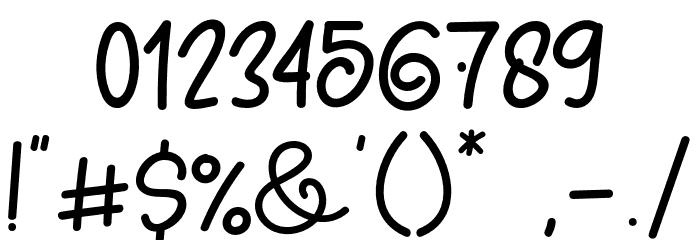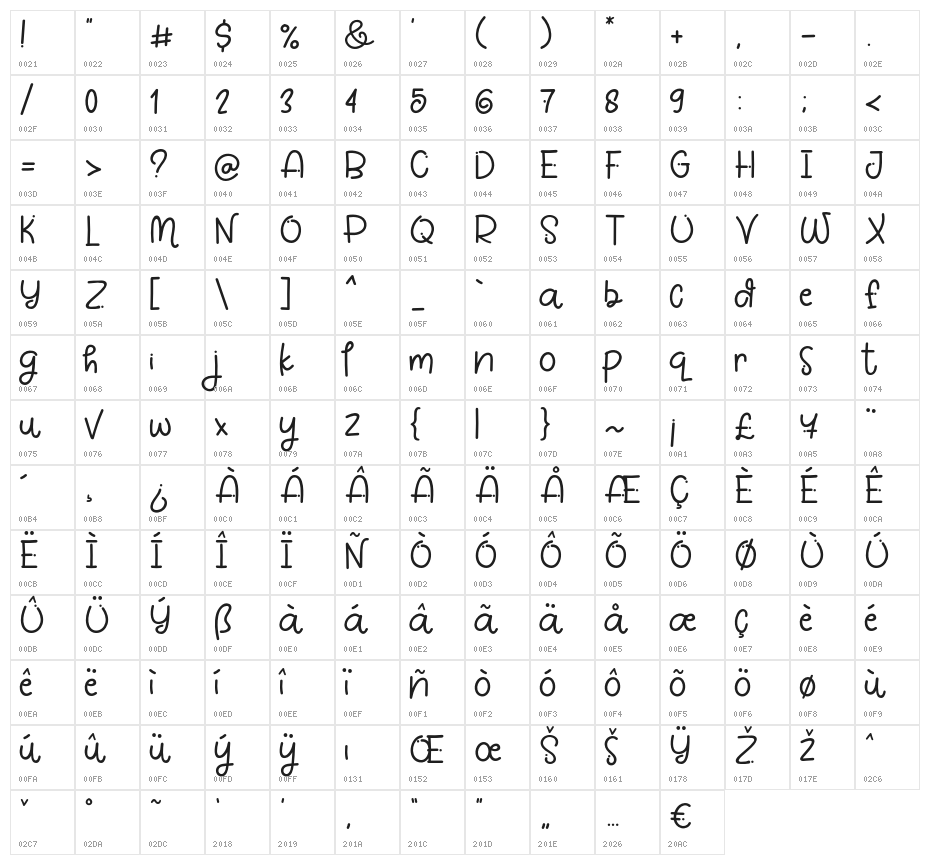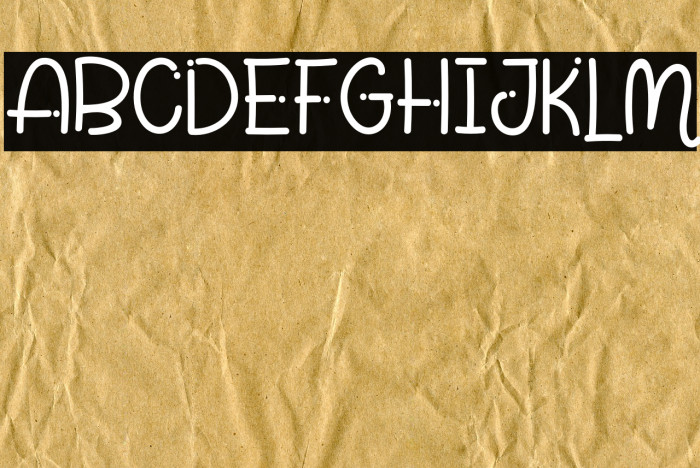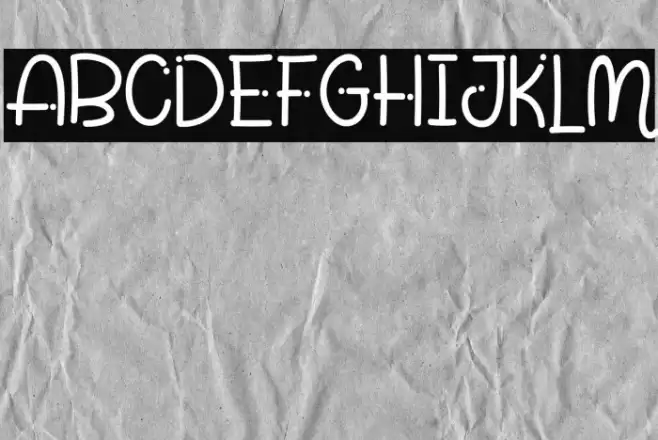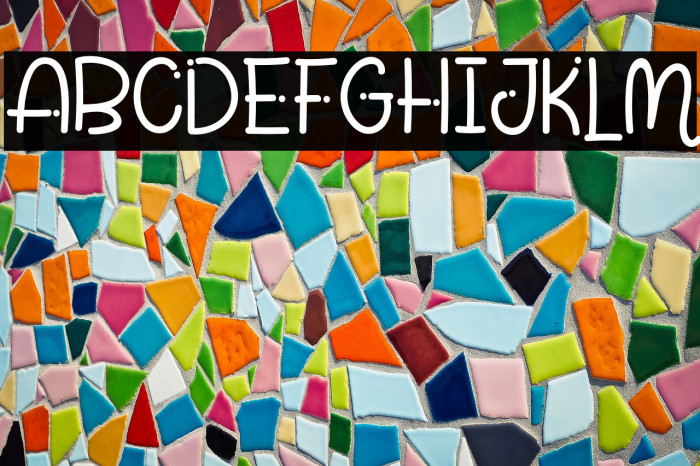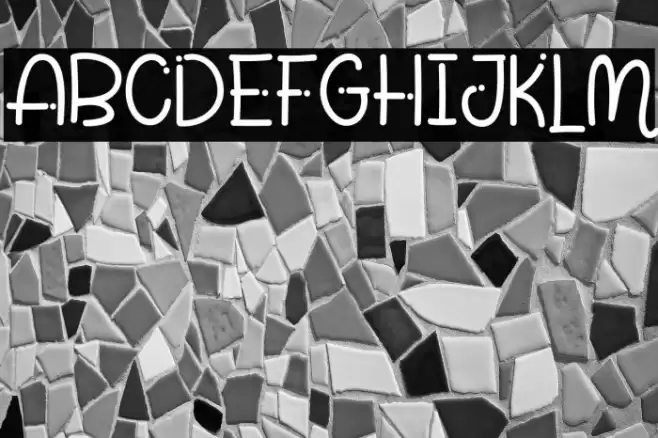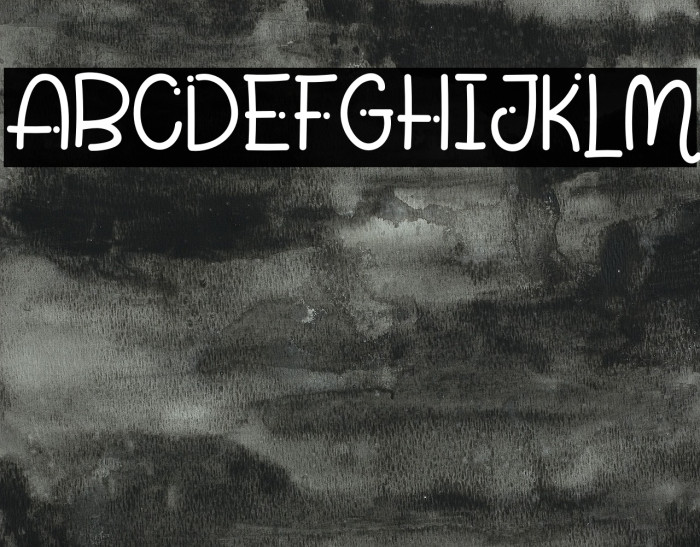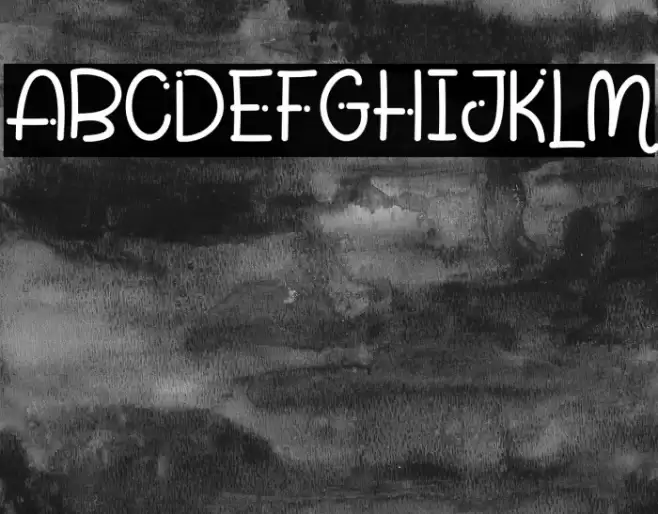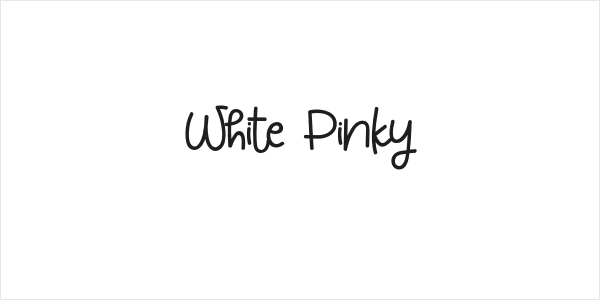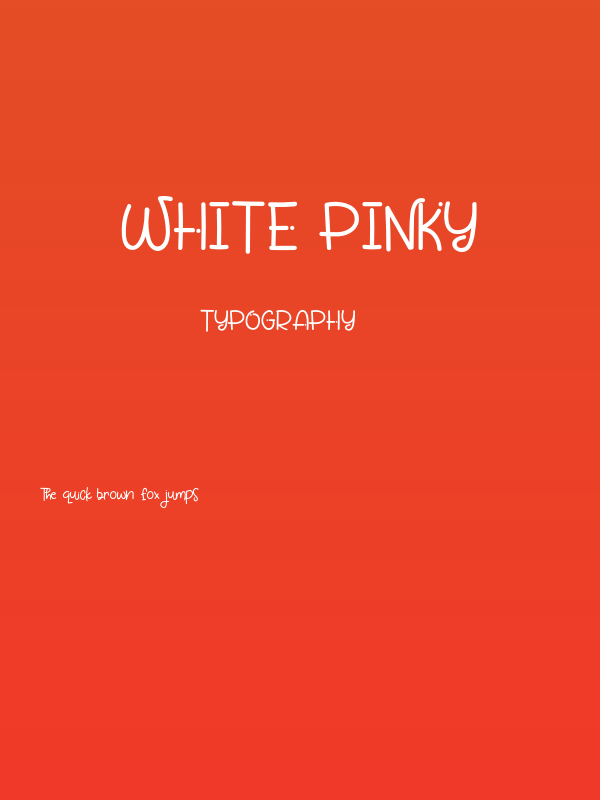
White Pinky Font
White Pinky Description
This playful and whimsical font features a handwritten style with a casual and friendly appearance. The characters are rounded and slightly irregular, giving them a personal touch. The uppercase letters are bold and prominent, while the lowercase letters maintain a consistent flow with a slight slant. Numbers and special characters are designed to match the overall style, ensuring a cohesive look. The font's unique character is enhanced by its decorative elements, such as small dots and loops, adding a touch of creativity. Ideal for projects that require a fun and informal tone, this font stands out with its distinctive personality.